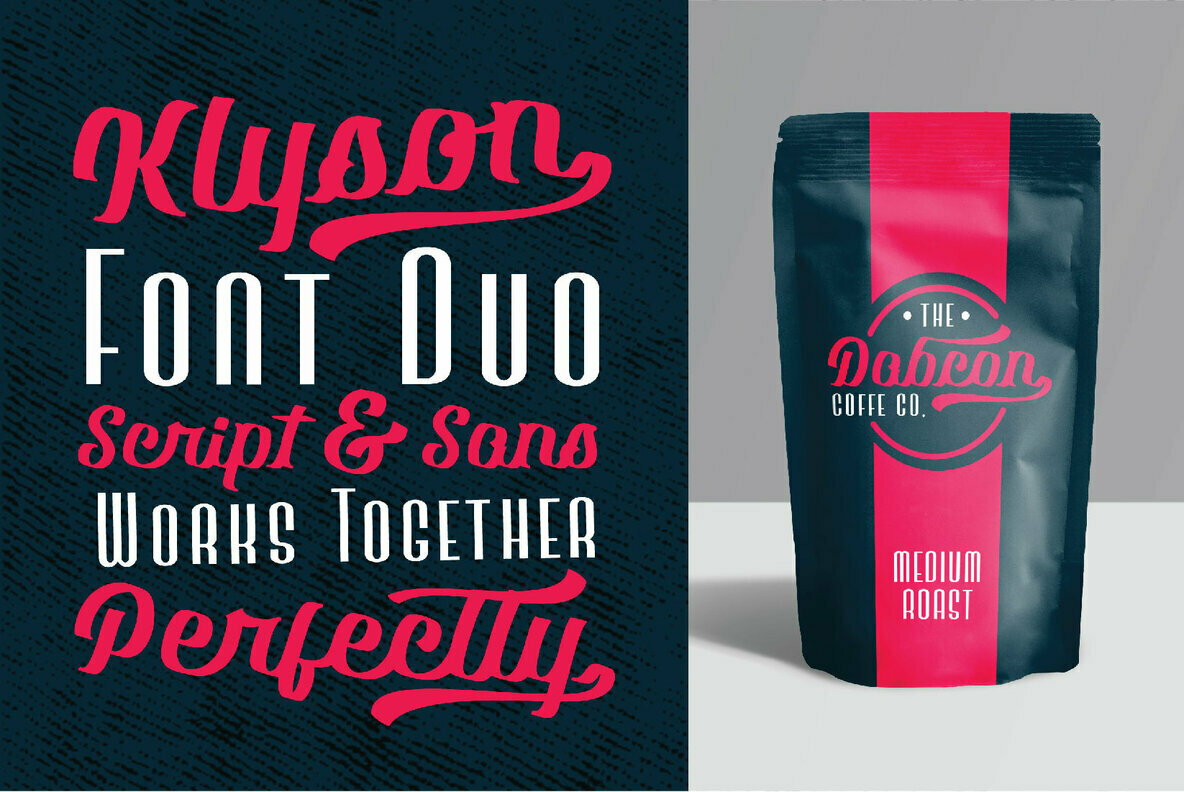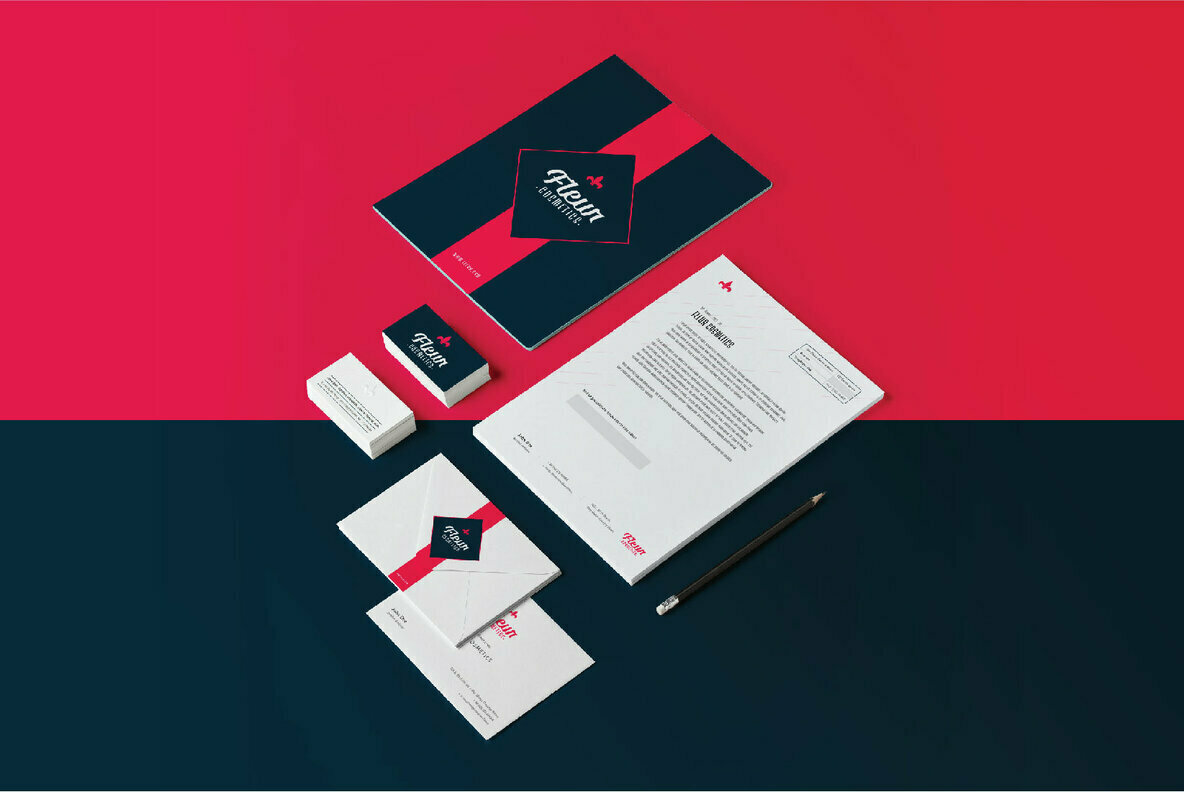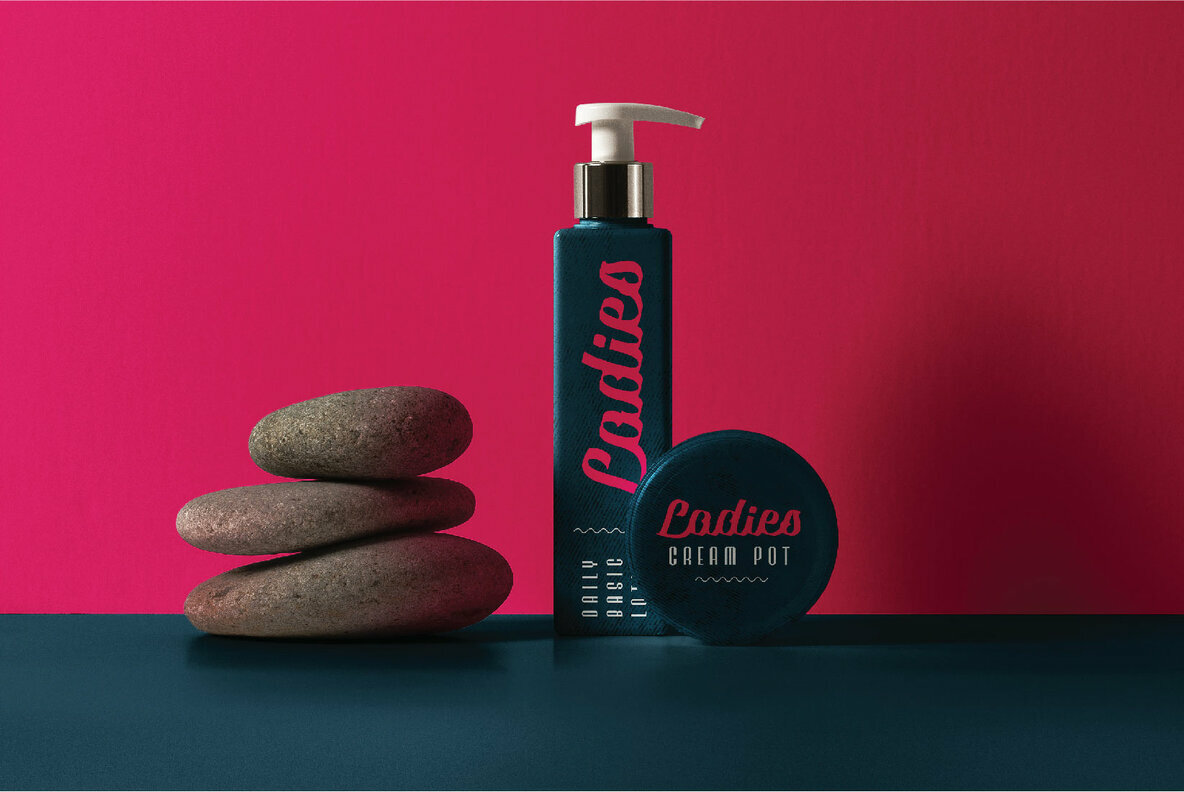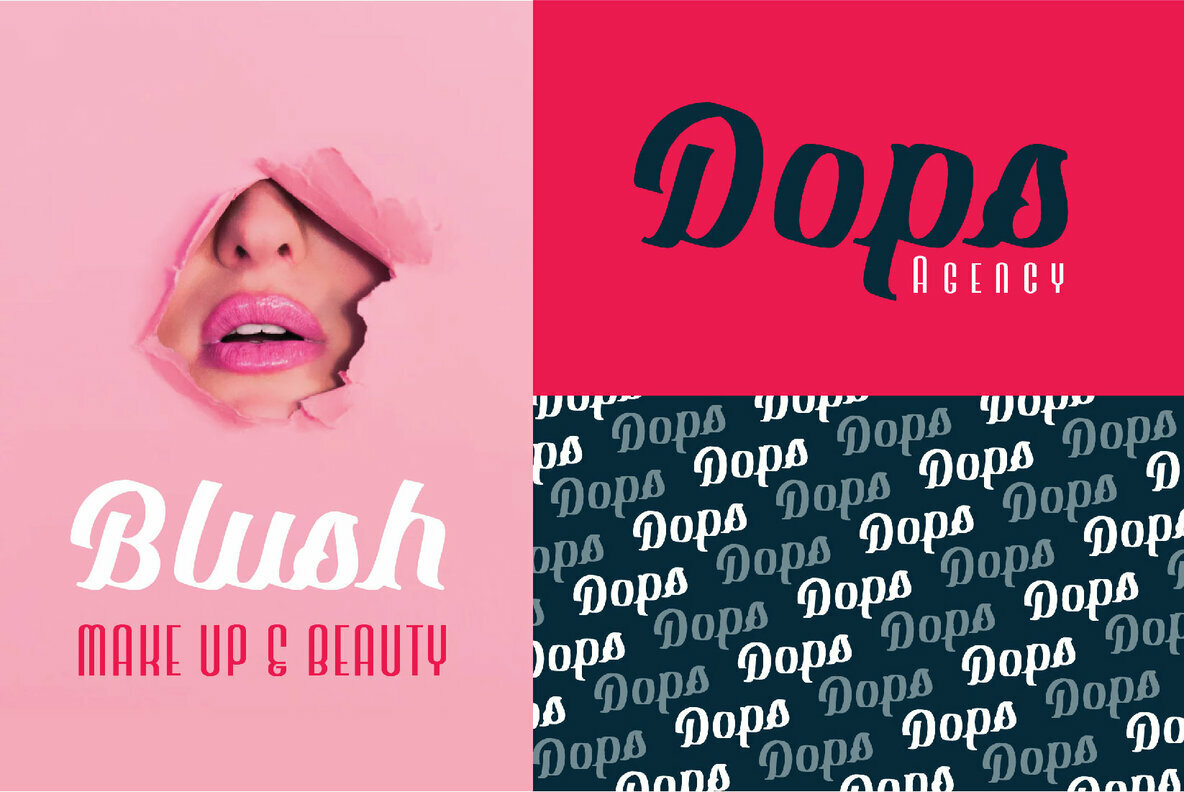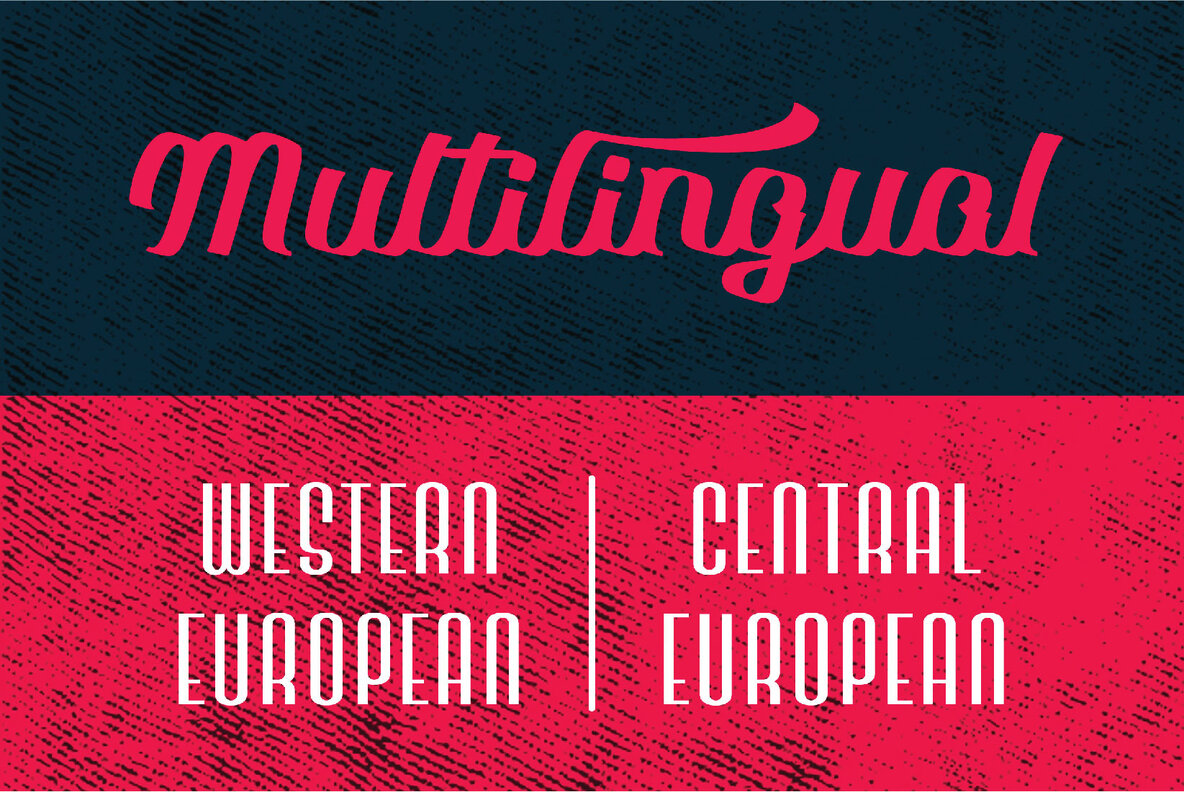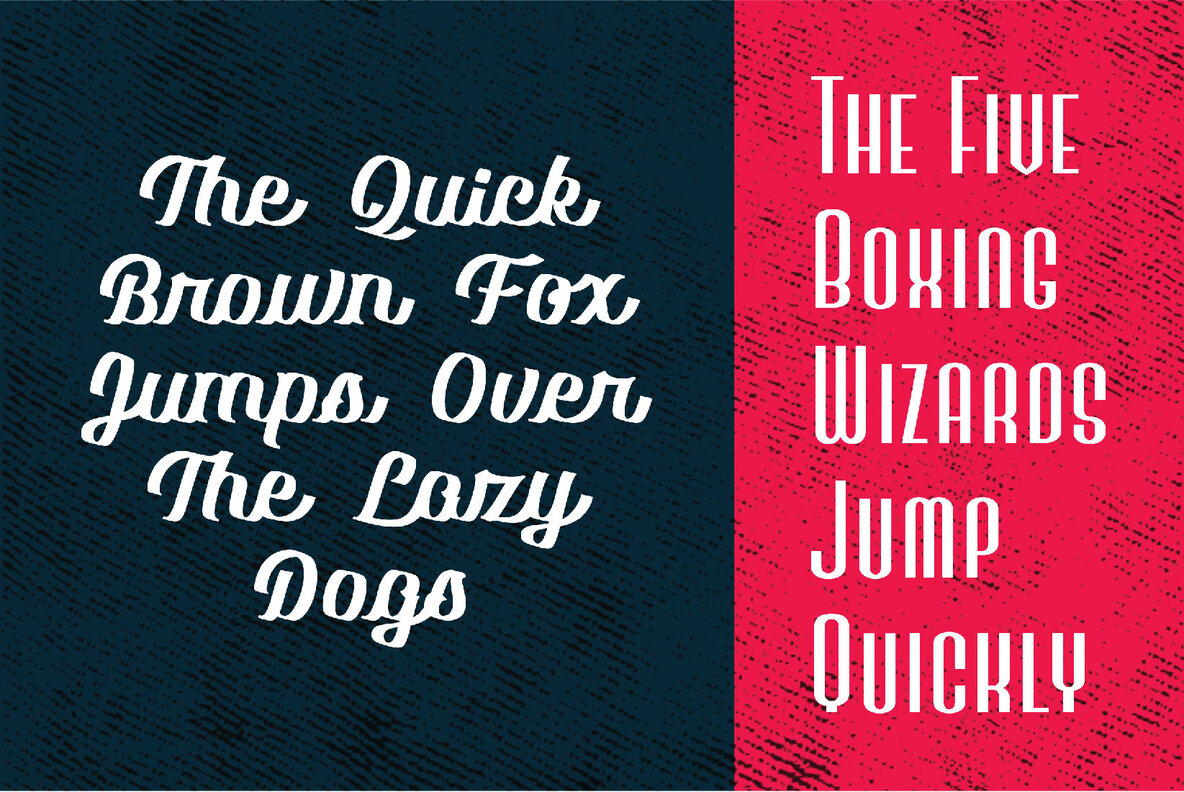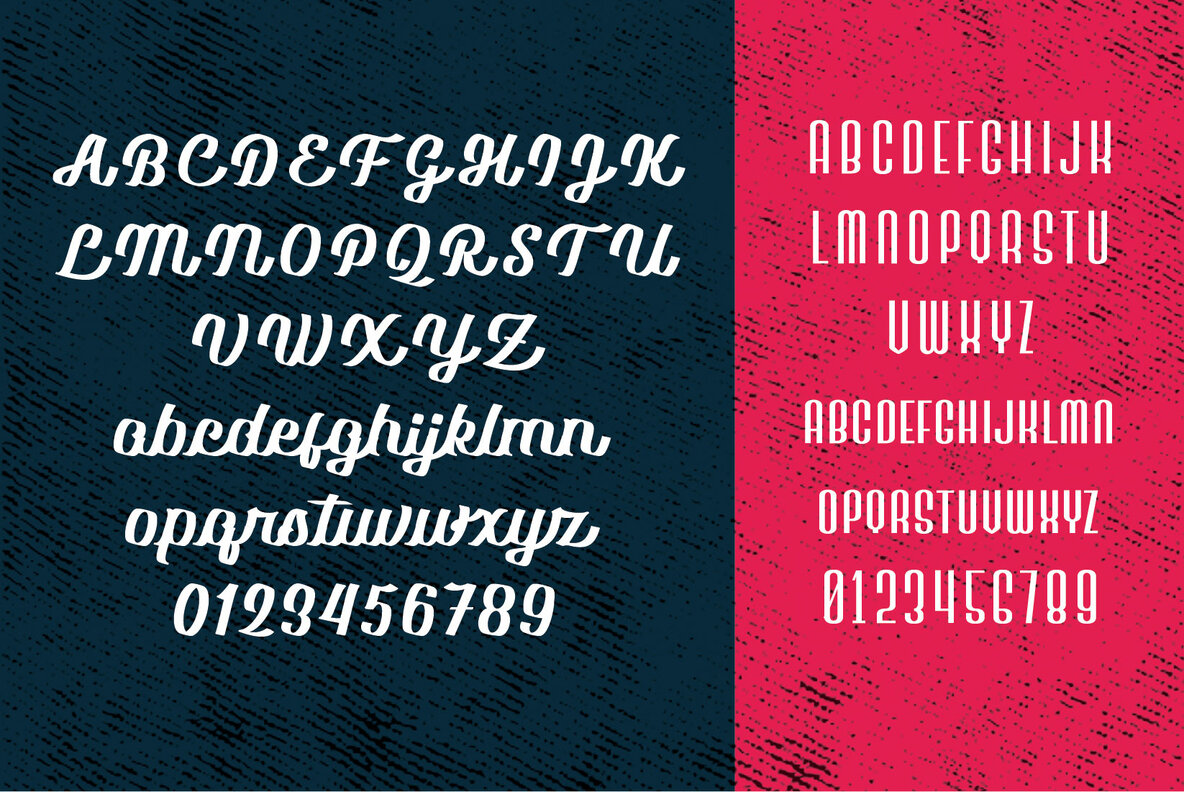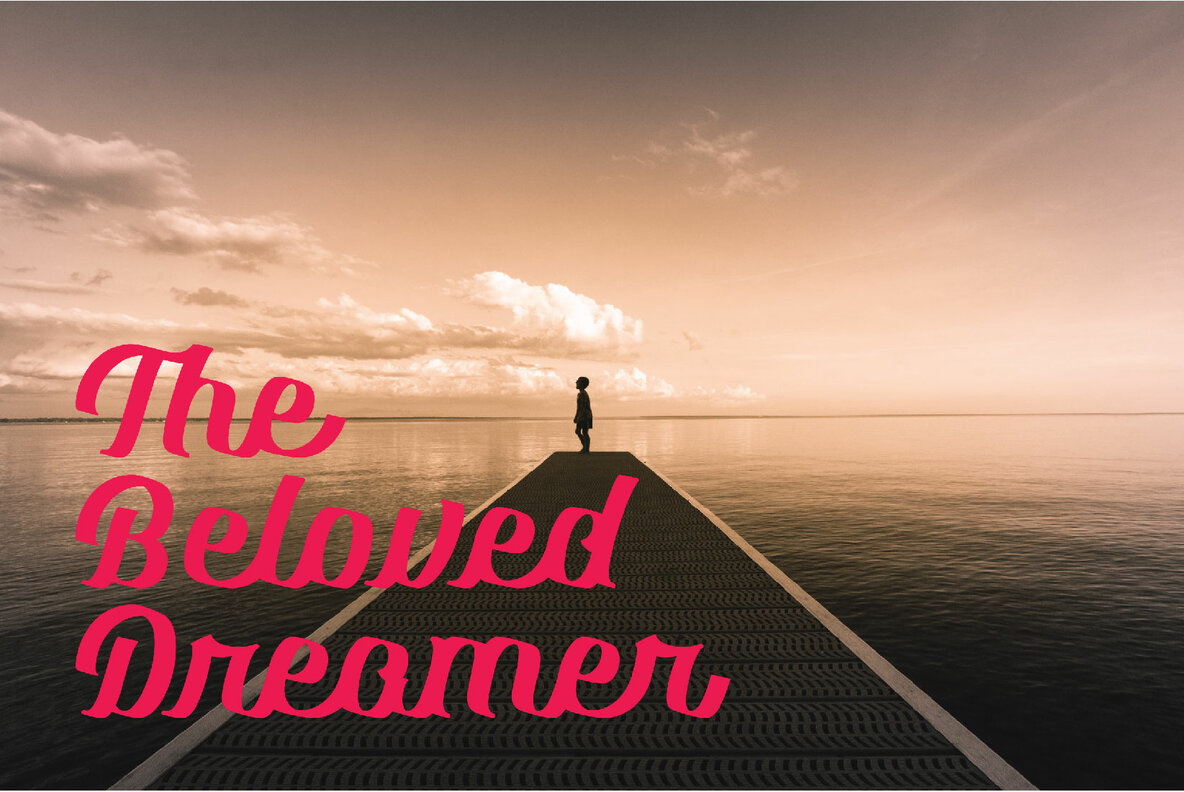
Klyson Font
The Klyson Font Duo offers a dynamic pairing of a clean, bold brush script and a thin sans-serif, providing versatility for your design projects. This script font includes various alternates that infuse creativity and flair into your text. When combined with its complementary sans font, you can craft aesthetically pleasing designs that capture attention. Features:Klyson Font Duo: Brush Script and Thin Sans Combination
Bring depth and style to your designs with the Klyson Font Duo, perfect for diverse creative needs.